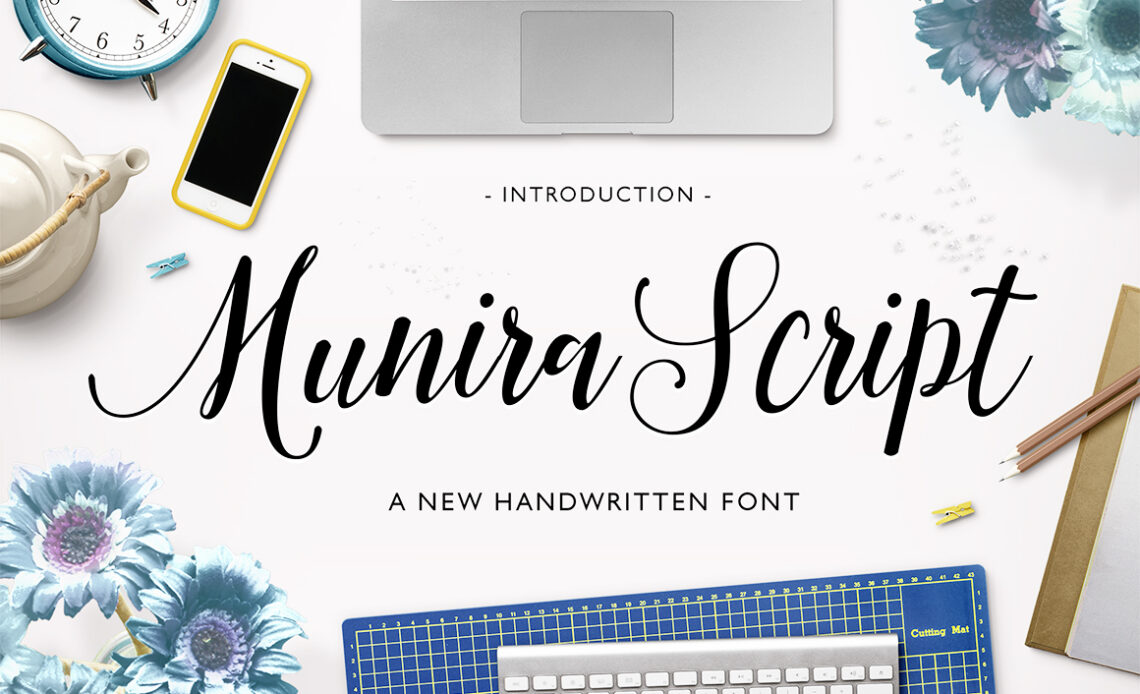
Munira Script Font
Prepare to fall in love with Munira Script, the enchanting font that will transform your designs with its alluring beauty and effortless elegance. Its captivating strokes mimic the graceful flow of a calligrapher's pen, inviting you to express your creativity and leave a lasting impression on your audience.
Munira Script's meticulously crafted curves and flourishes evoke a sense of timeless sophistication, adding a touch of ethereal elegance to every word. Its versatility knows no bounds, lending itself seamlessly to a wide range of design projects, from enchanting wedding invitations to captivating brand logos. Whether you seek to evoke a sense of romance, nostalgia, or timeless charm, Munira Script will effortlessly elevate your creations.
This exquisite font family comes complete with regular and bold variations, empowering you to experiment with weight and emphasis to achieve the perfect visual impact. Unleash your imagination and explore endless possibilities, from delicate whispers to bold statements, as you weave your words into unforgettable designs.
Created by the renowned Picatype Studio, Munira Script is a testament to their unwavering dedication to excellence and innovation. Their passion for typography shines through in every meticulously crafted letterform, ensuring that your designs will stand out from the crowd with unparalleled beauty and distinction.
Don't resist the allure of Munira Script. Embrace its enchanting charm and let your creativity soar. Discover the limitless possibilities that await you as you unleash the power of this extraordinary font. Its captivating strokes and timeless elegance will ignite your imagination and leave an unforgettable mark on the hearts of your audience.